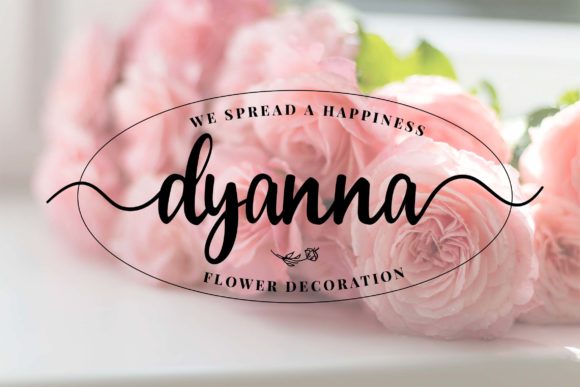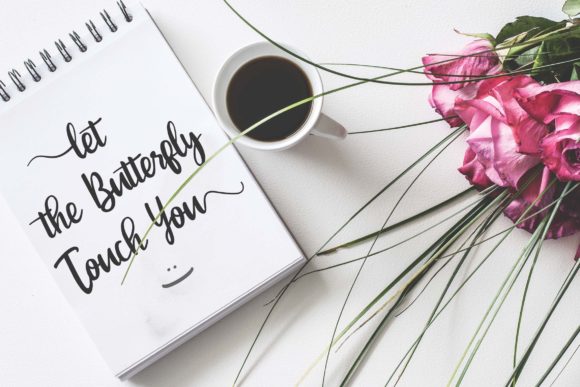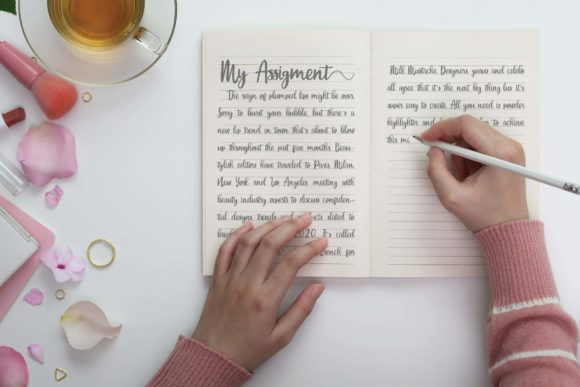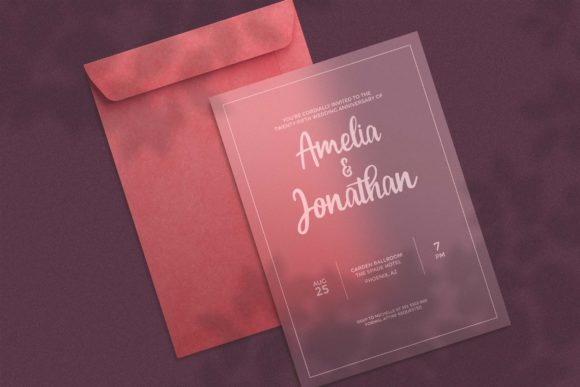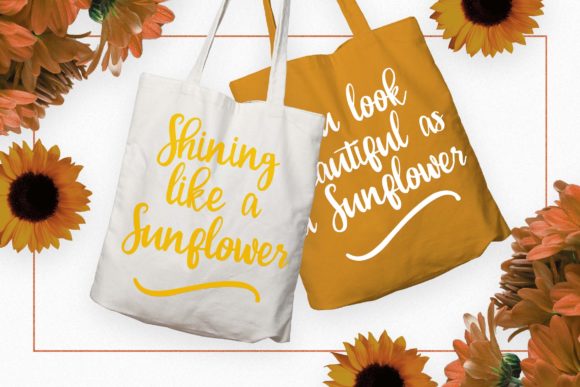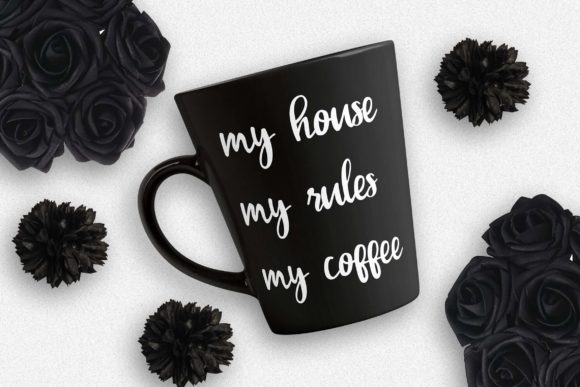
Introducing Beauty Amanda Font: The Sweet and Soft Hand-Lettered Font for Your Creative Projects
Are you looking for a font that can add a touch of elegance and sophistication to your designs? Look no further than Beauty Amanda Font, a sweet and soft hand-lettered handwritten font that is perfect for creating beautiful wedding invitations, stationary art, social media posts, and greeting cards.
What is Beauty Amanda Font?
Beauty Amanda Font is a unique and authentic hand-lettered font that is designed to give your designs a personal and human touch. Its soft and delicate strokes, combined with its elegant and cursive style, make it perfect for a wide range of creative projects. Whether you’re a designer, crafty DIY enthusiast, or social media influencer, Beauty Amanda Font is sure to become your go-to font for all your design needs.
Features of Beauty Amanda Font
So, what makes Beauty Amanda Font so special? Here are some of its key features:
• Hand-lettered authenticity: Beauty Amanda Font is carefully hand-lettered to give it a unique and authentic feel that is perfect for creating beautiful and eye-catching designs.
• Soft and delicate strokes: The font features soft and delicate strokes that give it a feminine and elegant touch.
• Elegant and cursive style: Beauty Amanda Font has an elegant and cursive style that is perfect for creating sophisticated and stylish designs.
• Versatile: The font is versatile and can be used for a wide range of creative projects, from wedding invitations and stationary art to social media posts and greeting cards.
Uses of Beauty Amanda Font
Beauty Amanda Font is a versatile font that can be used for a wide range of creative projects. Here are some ideas to get you started:
• Wedding invitations: Create beautiful and elegant wedding invitations that will set the tone for your special day.
• Stationary art: Use Beauty Amanda Font to create beautiful stationary art, such as notecards, journals, and planners.
• Social media posts: Add a touch of elegance and sophistication to your social media posts with Beauty Amanda Font.
• Greeting cards: Create cute and personalized greeting cards for special occasions, such as birthdays, holidays, and anniversaries.
Why Choose Beauty Amanda Font?
So, why should you choose Beauty Amanda Font for your design needs? Here are some reasons:
• Unique and authentic: Beauty Amanda Font is a unique and authentic hand-lettered font that will give your designs a personal and human touch.
• Elegant and sophisticated: The font has an elegant and sophisticated style that is perfect for creating beautiful and eye-catching designs.
• Versatile: Beauty Amanda Font is versatile and can be used for a wide range of creative projects.
In conclusion, Beauty Amanda Font is a sweet and soft hand-lettered handwritten font that is perfect for creating beautiful and eye-catching designs. Its authentic feel, elegant style, and versatility make it a great choice for designers, crafty DIY enthusiasts, and social media influencers. Whether you’re looking to create wedding invitations, stationary art, social media posts, or greeting cards, Beauty Amanda Font is sure to become your go-to font for all your design needs.